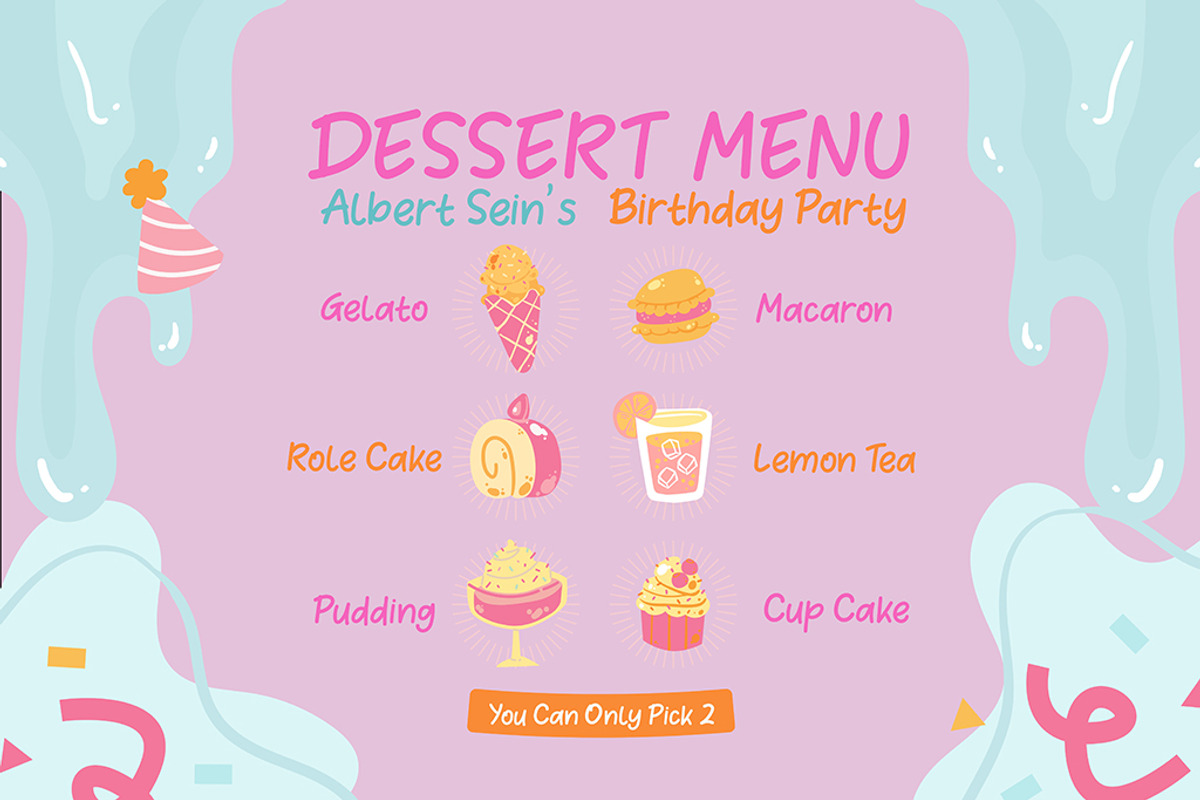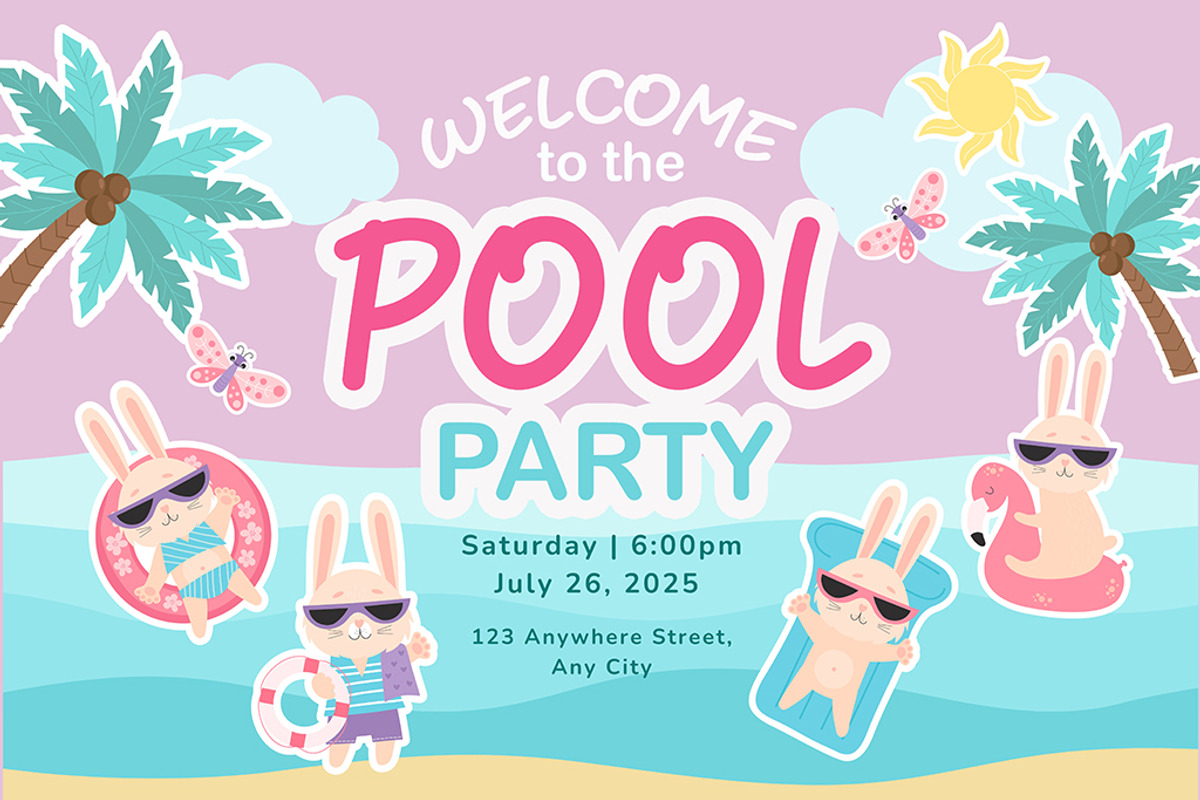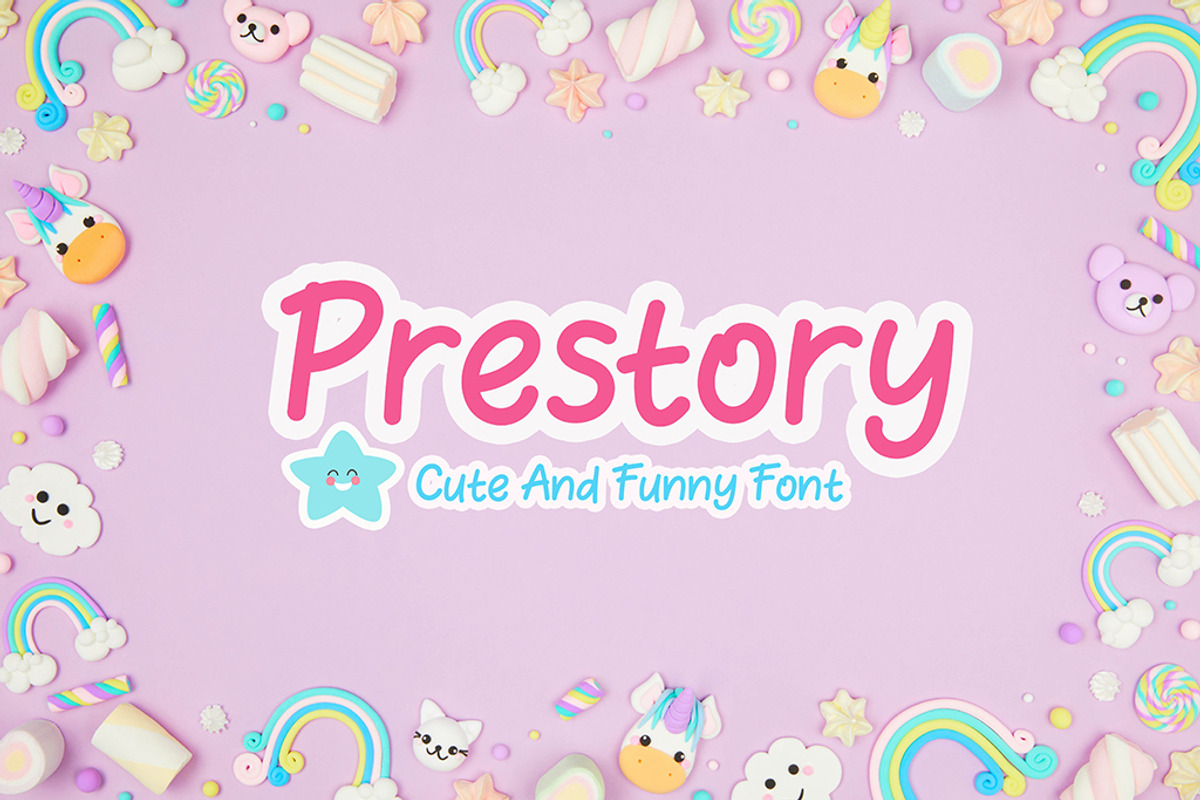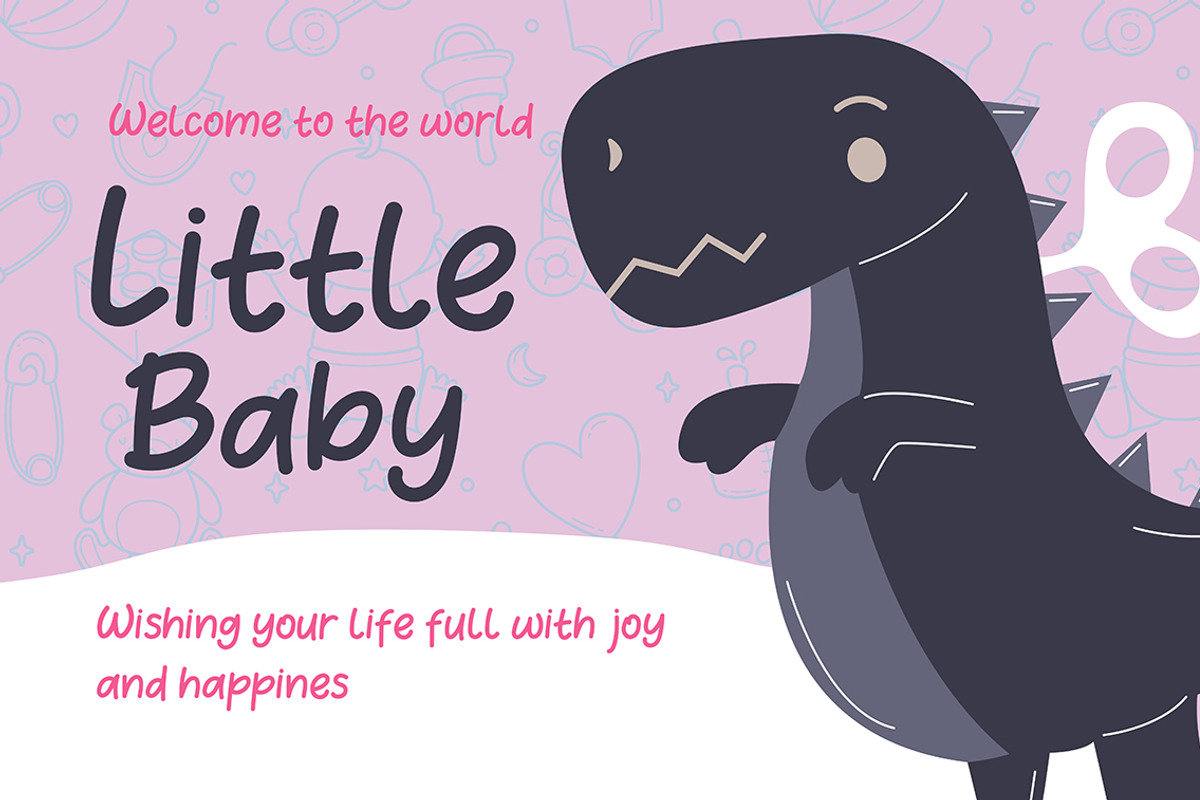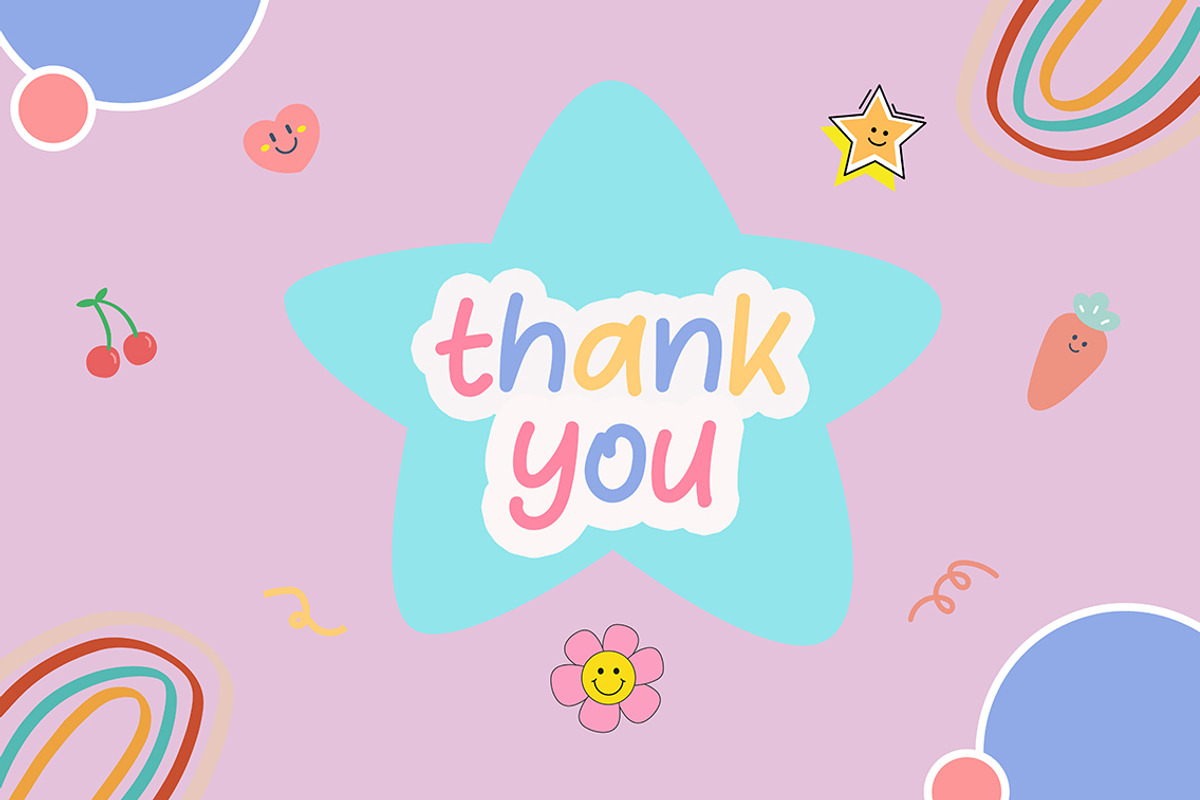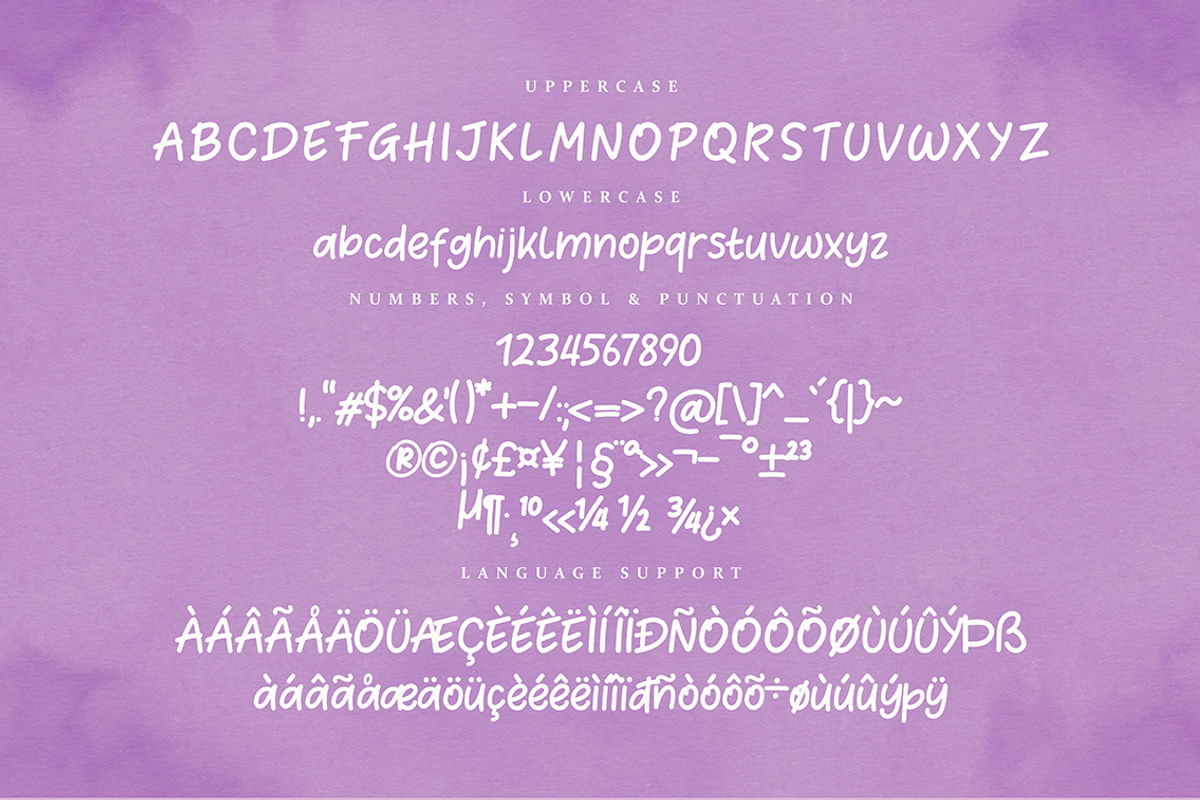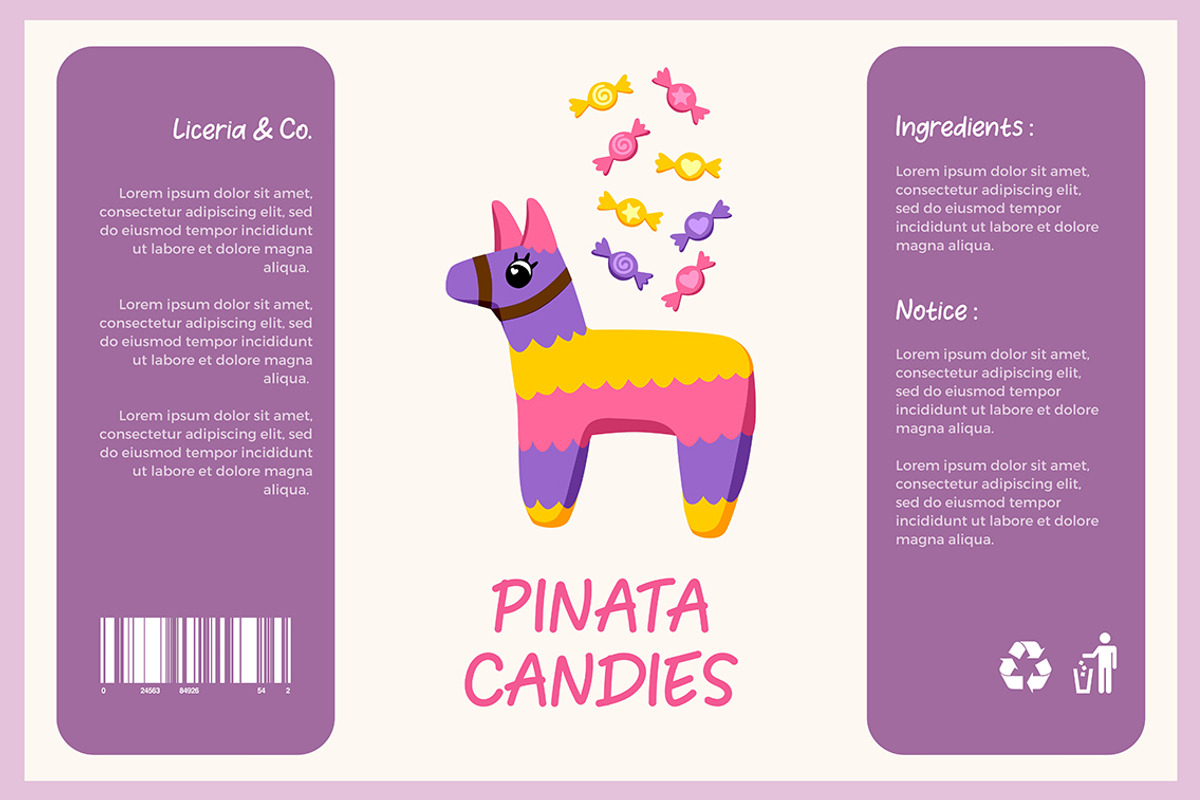
Prestory
Prestory is a playful handwritten font. It has a hand drawn style but childish look which makes it suitable for books, posters and flyers, logos, quotes, invitations, product packaging or apparel design.